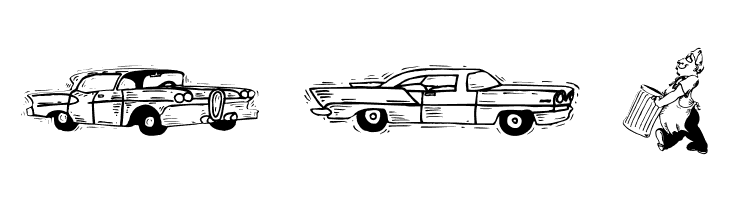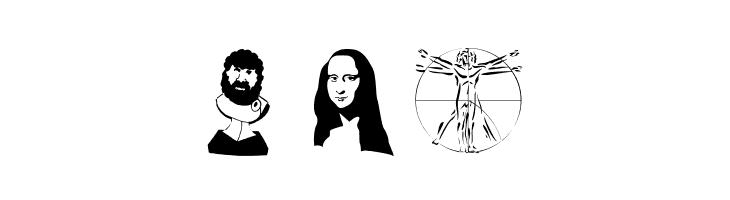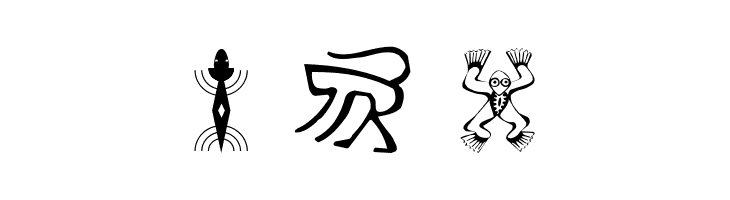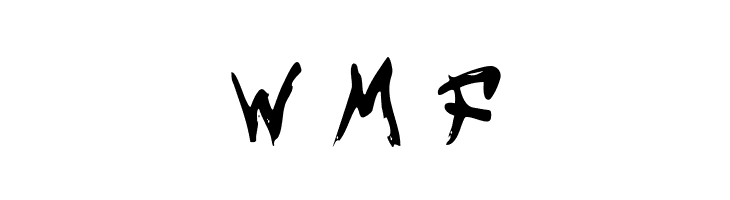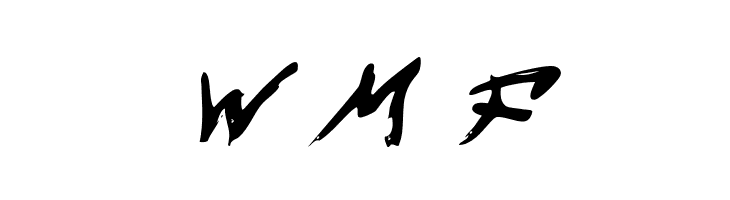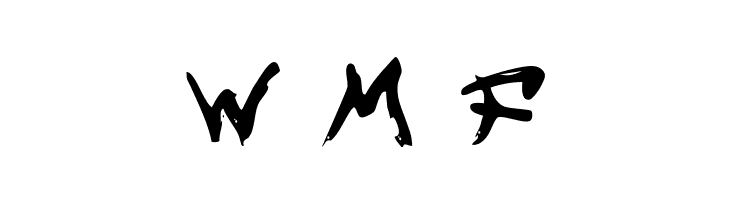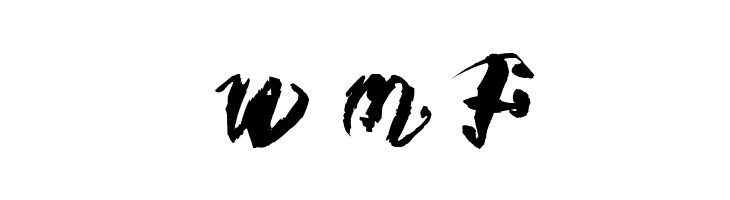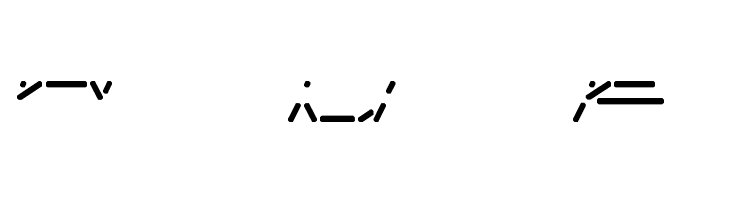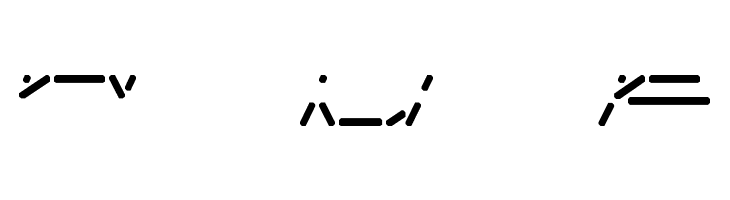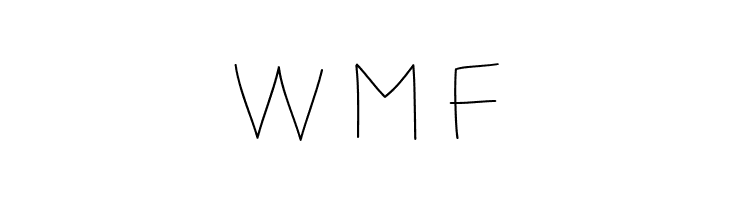
A bold, left-leaning font with sharp angles and a dynamic style.
A bold, angular font with a blackletter-inspired design.
A bold, dynamic font with tall, narrow letterforms and high contrast strokes.
A segmented, monospaced font with a digital, technical appearance.
A segmented, digital-style font with a futuristic and technical appearance.
A historical and classical font with sharp, angular strokes and distinct serifs.
A retro-themed pictorial dingbat font with vintage illustrations.
Decorative font with illustrated faces and head profiles.
A playful, handwritten font with rounded, consistent strokes and a casual vibe.
A playful, handwritten-style font with thin, elongated characters.
A bold, brush-style font with dynamic and irregular strokes.
A bold, brush-style font with a dynamic and energetic appearance.
A bold, condensed, and italic font with high contrast and dynamic, brush-like strokes.
A bold, brush-style italic font with dynamic, expressive strokes.
Bold pictogram dingbats depicting military and war-related imagery.
A bold, brush-style font with dynamic, calligraphic strokes.
A pictorial, decorative font mimicking ancient cave art and petroglyphs.
A futuristic, angular font with sharp edges and geometric shapes.
A fine arts-themed decorative dingbat font with detailed art-related icons.
An ornate and dramatic Blackletter-style font with intricate details.
A dynamic and expressive cursive script font with elegant, sweeping strokes.
A dynamic, flame-inspired decorative font with jagged, organic edges.
A playful, handwritten font with a whimsical and informal style.
A novelty font using firearm silhouettes as letterforms.
A bold, fiery font with jagged, distressed characters.
A decorative font with characters encased in fireworks-like bursts.